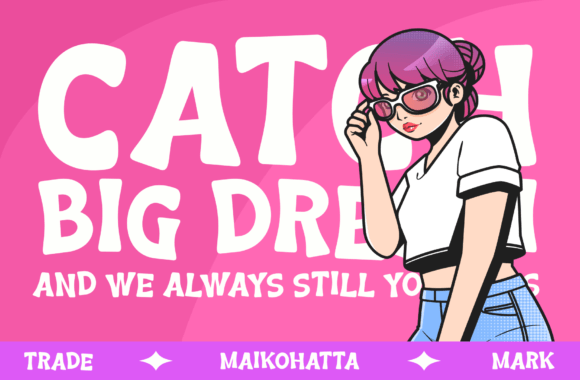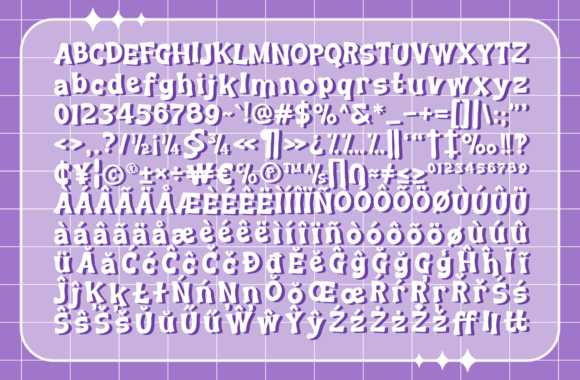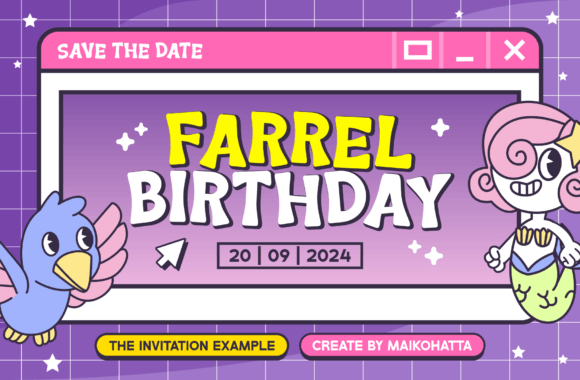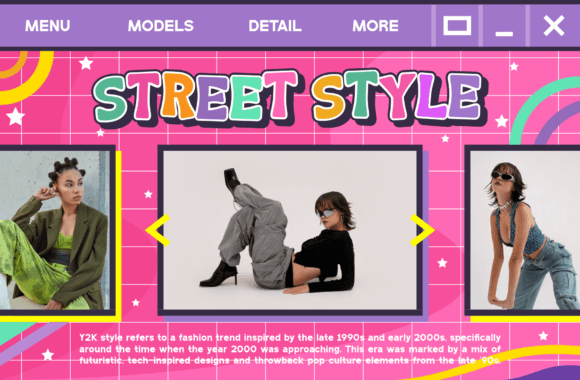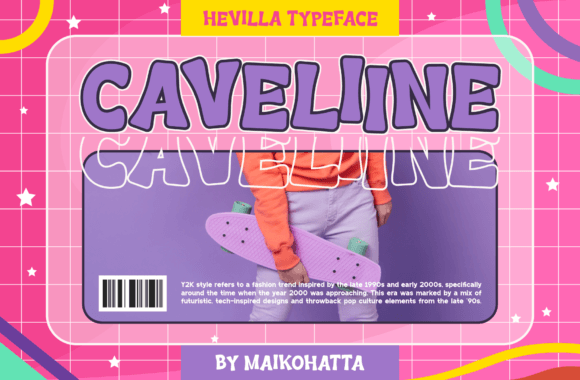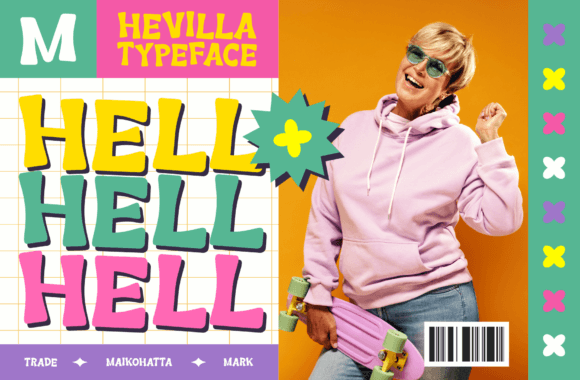
Introduction to Hevilla Font
Introducing our new product **Hevilla** – Y2k Display **Hevilla** is a visual representation of the Y2K (2000) aesthetic featuring futuristic style, technology, and digital elements from the early 2000’s.
This font incorporates elements such as old computer displays, pixels, neon, and geometric shapes that are reminiscent of the technological developments of the time .